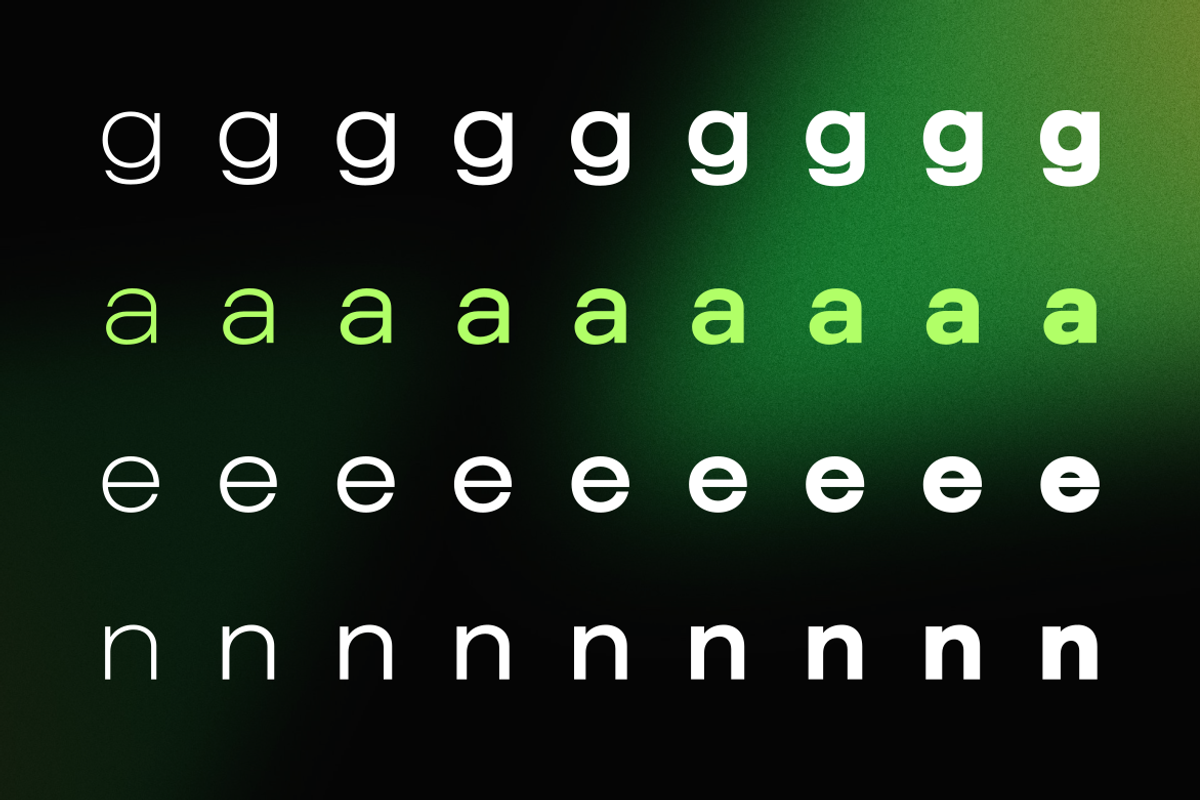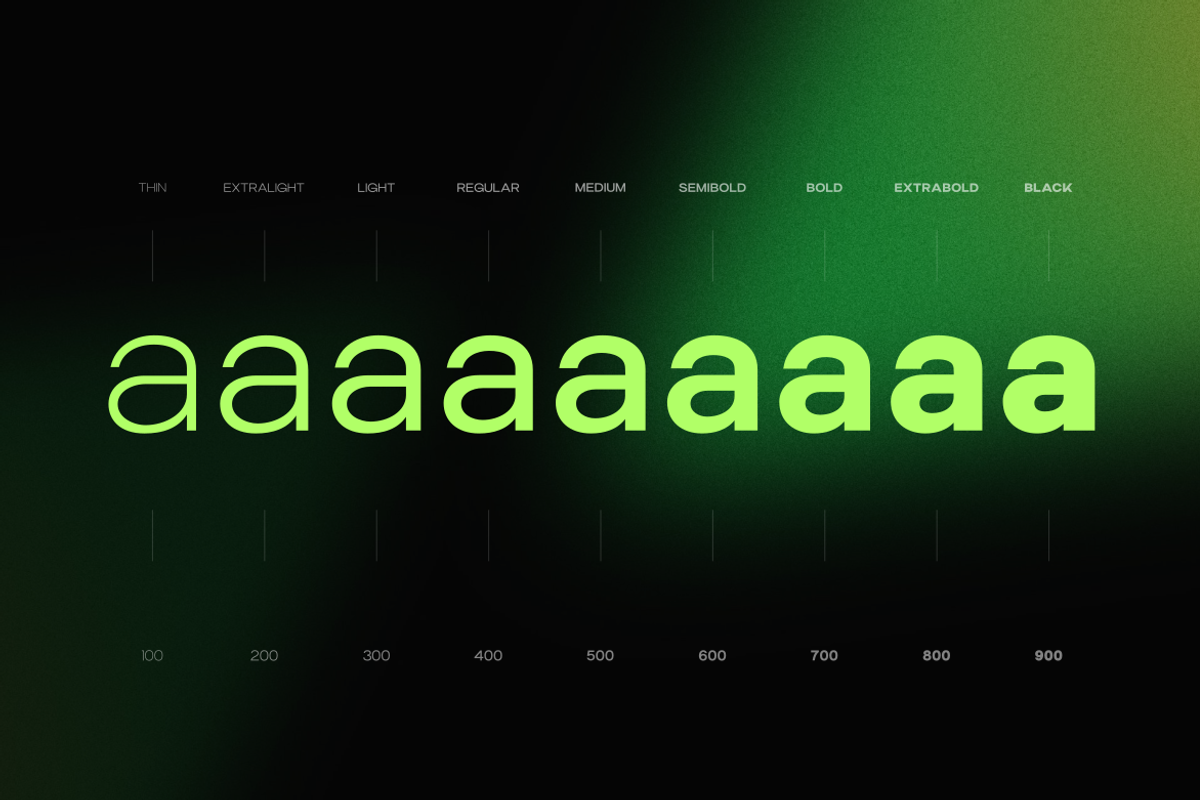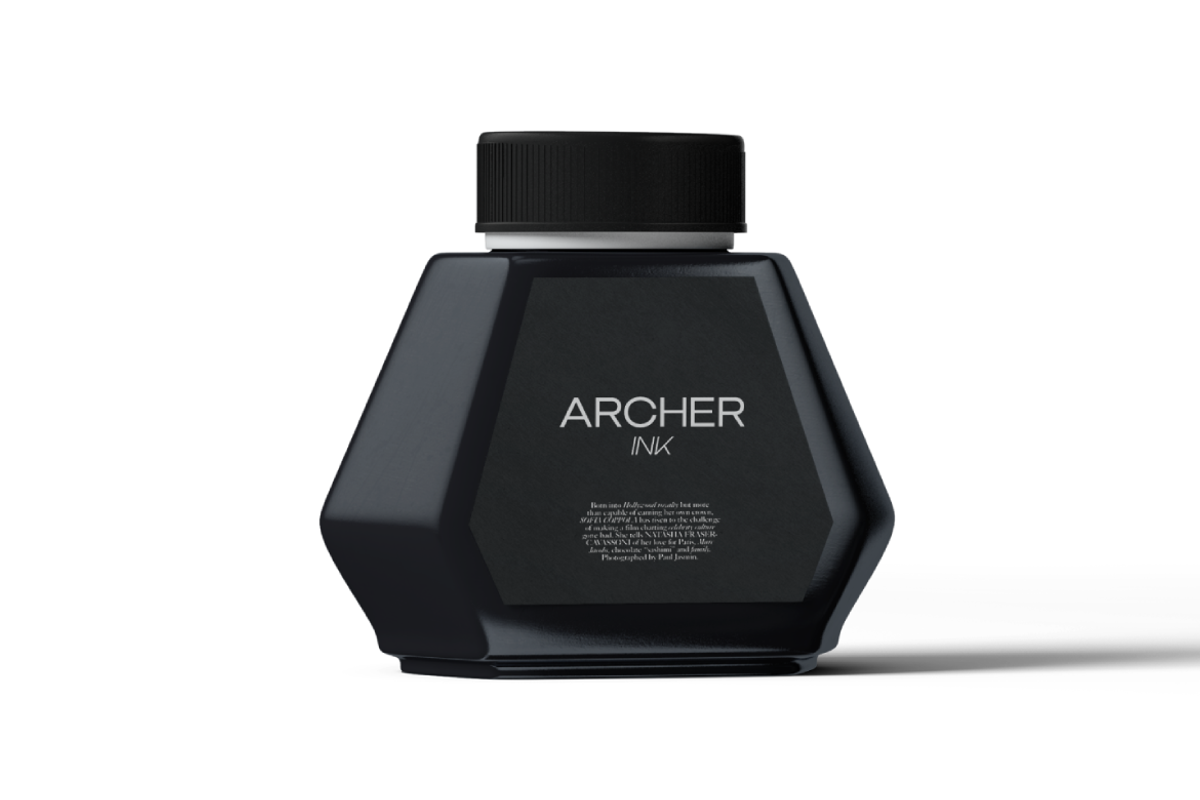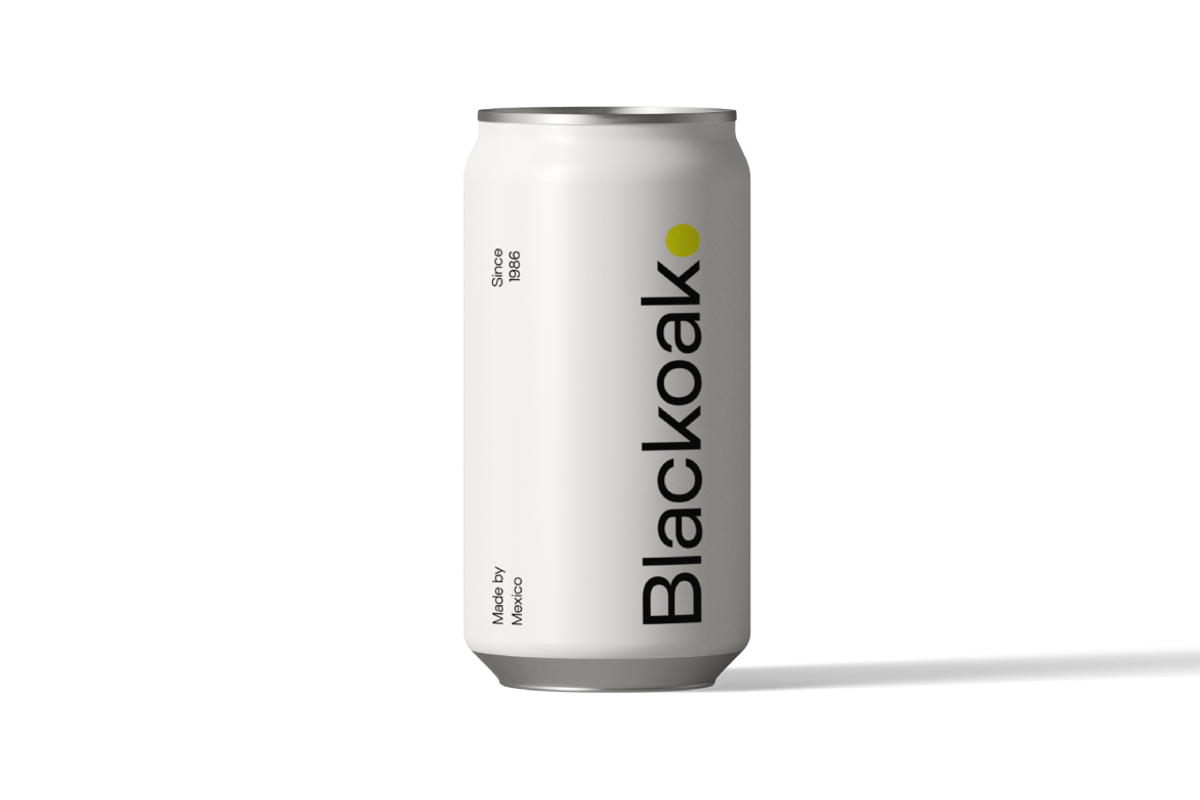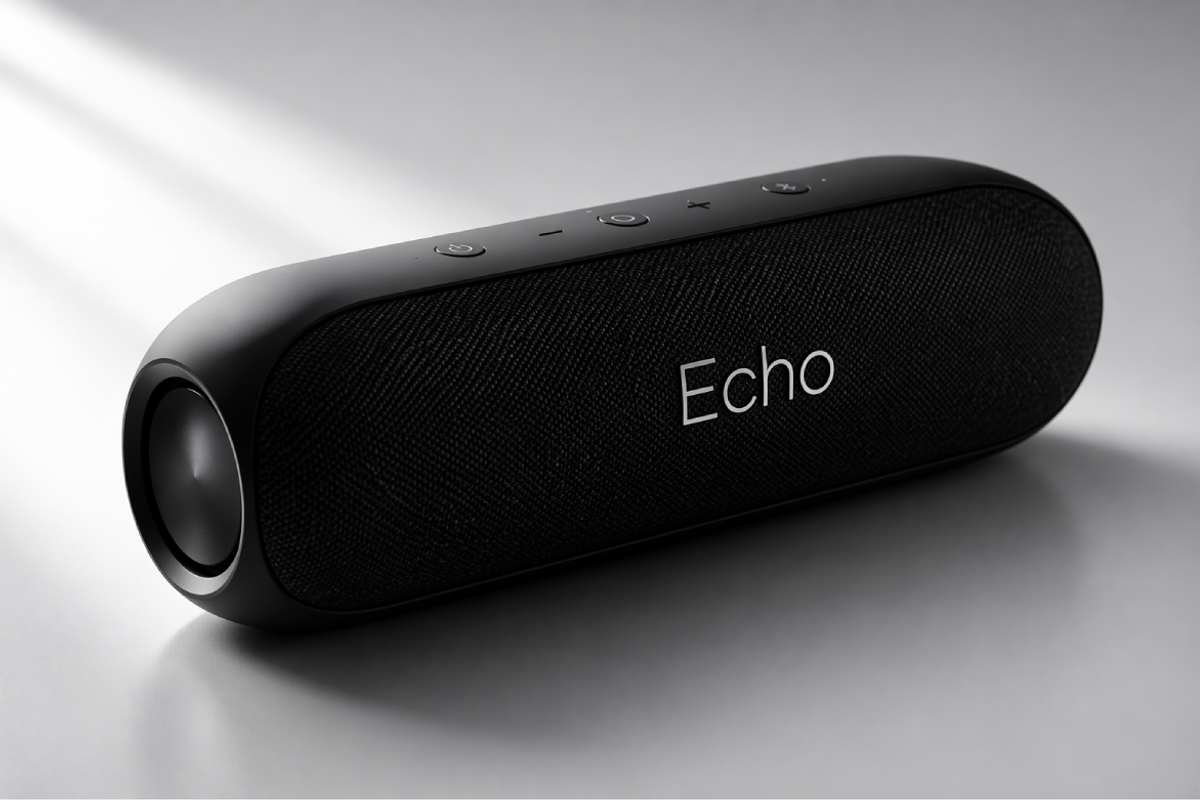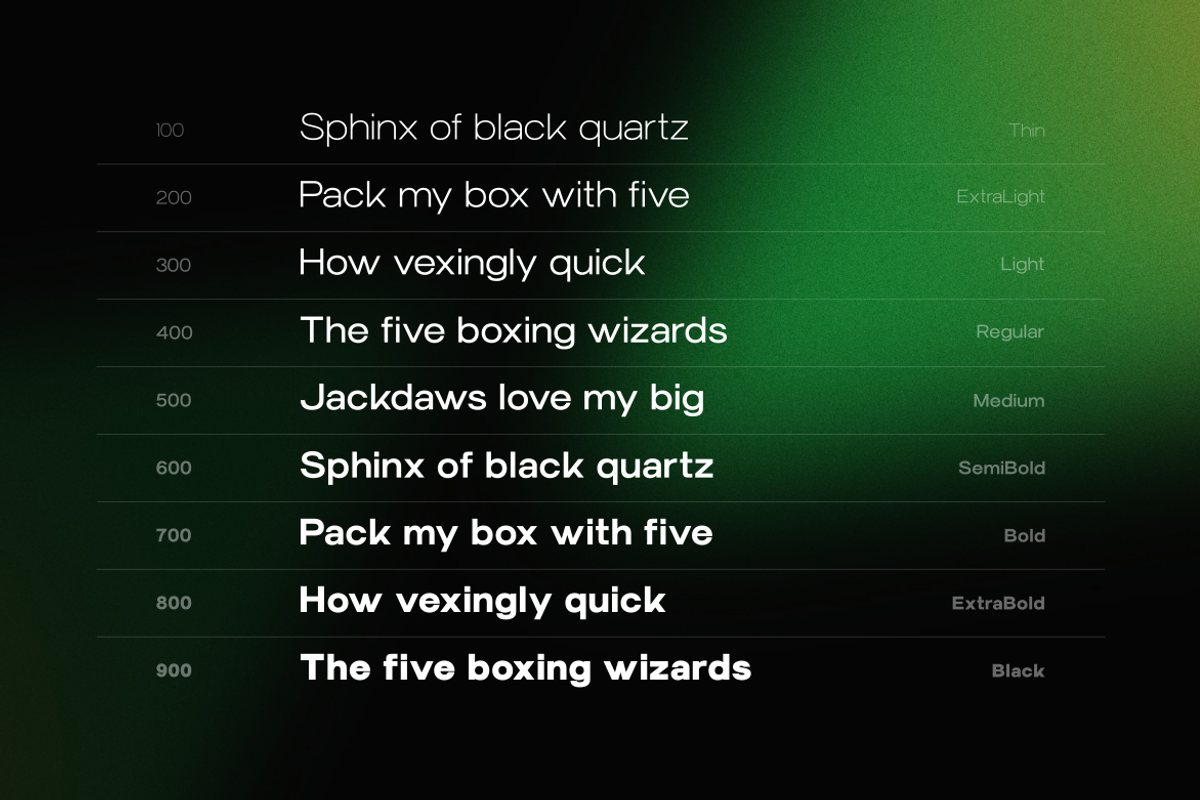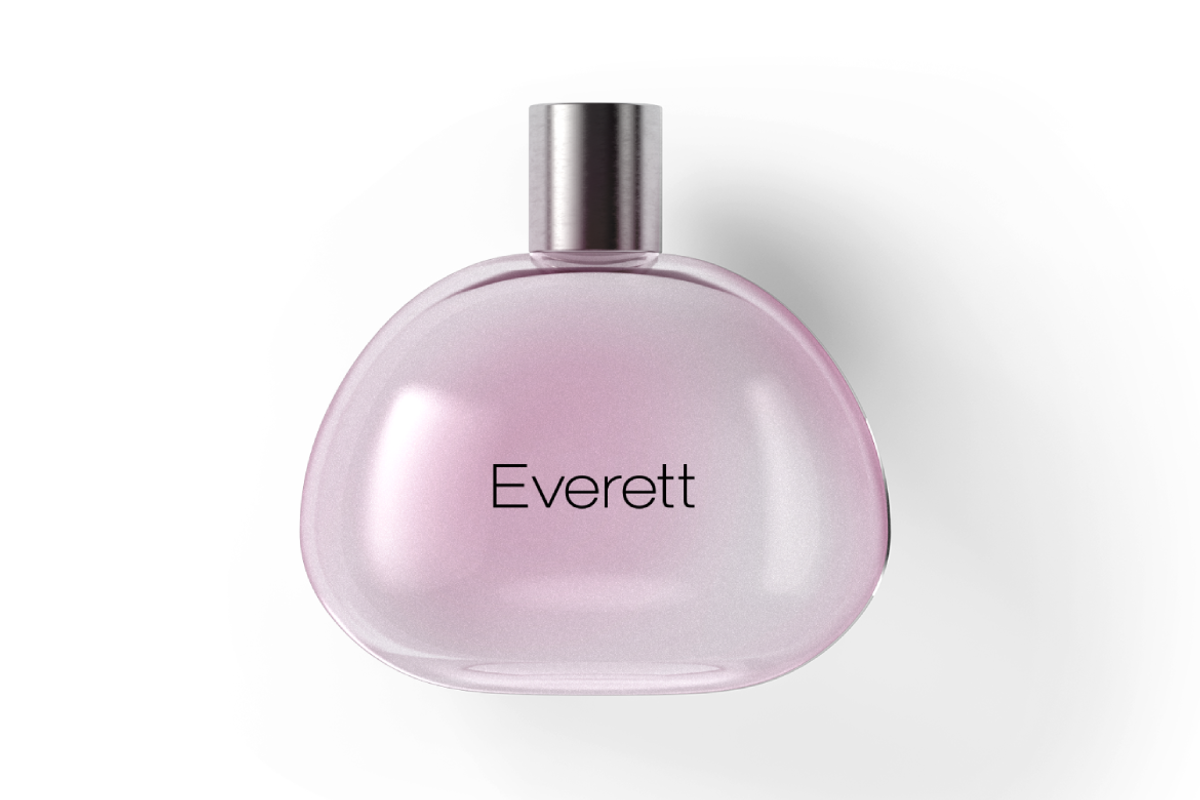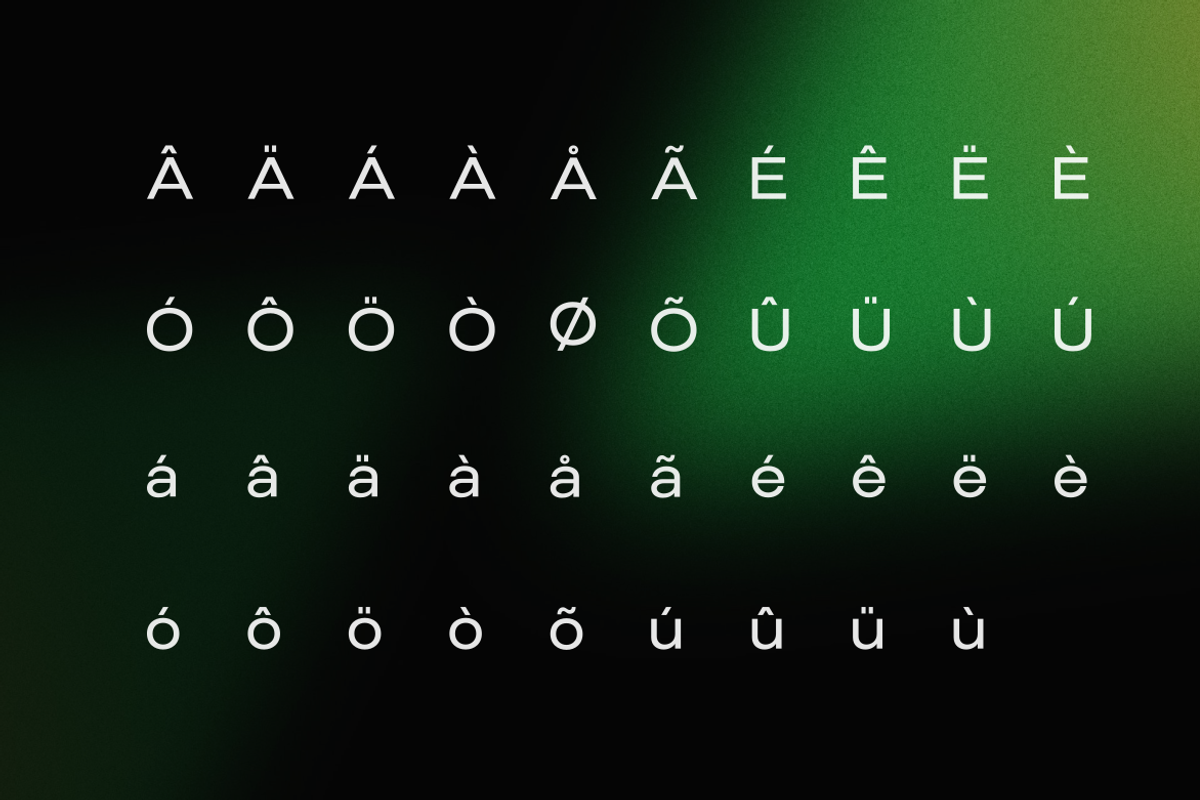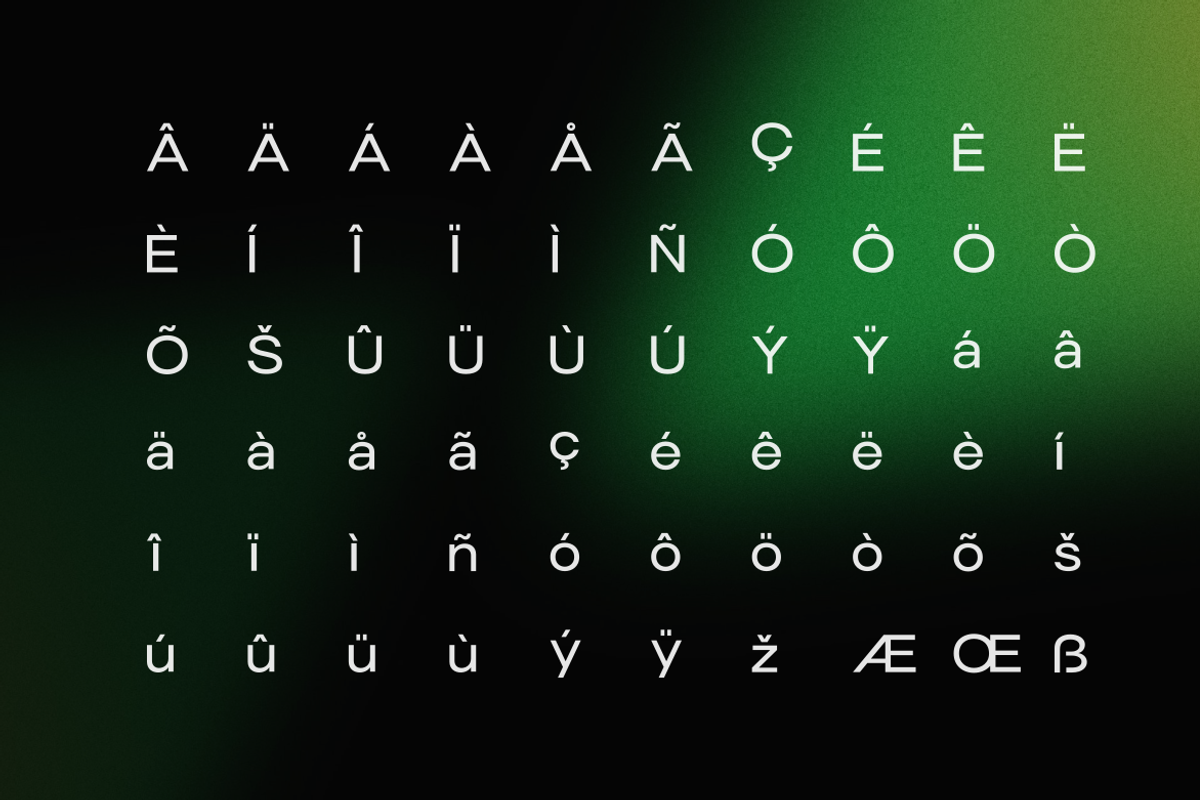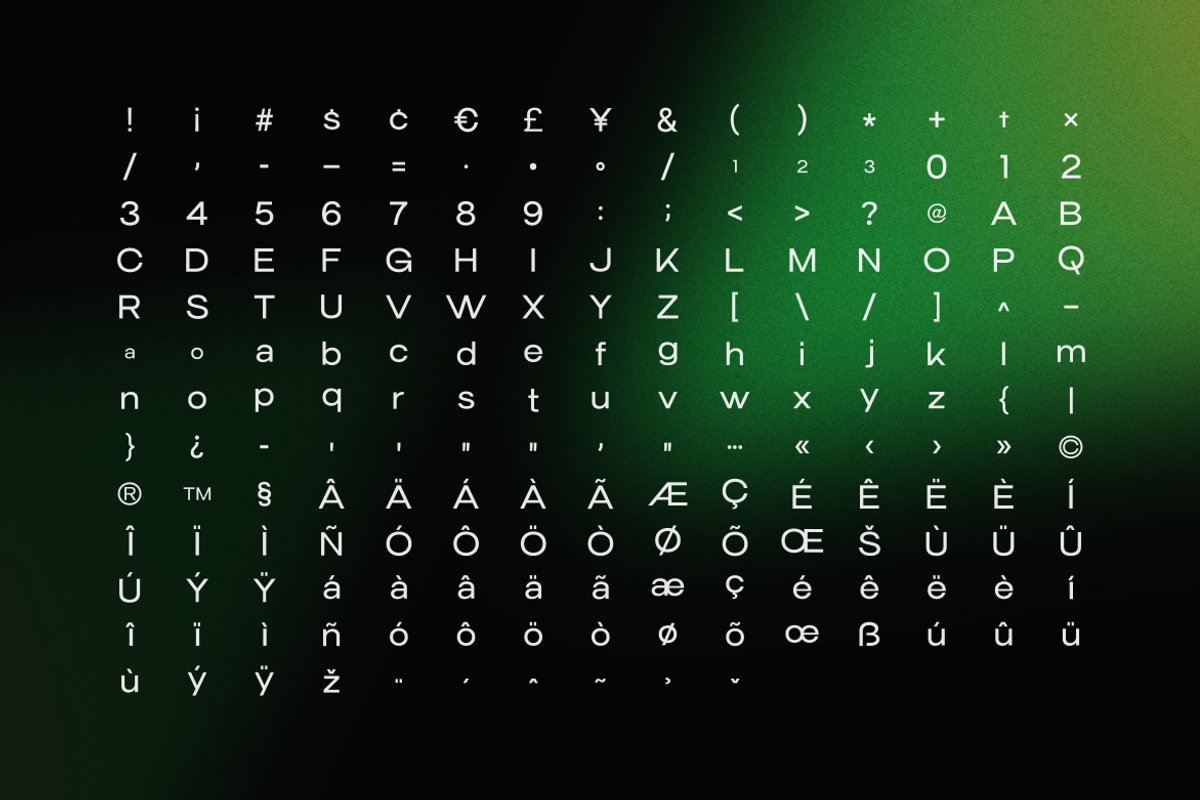
Trevia Groteska – Modern Grotesk
Trevia Groteska is a modern grotesk sans-serif typeface designed for clarity, balance, and everyday usability. With its clean letterforms, controlled spacing, and neutral tone, it works well across interfaces, branding, and editorial design.
Built with a focus on readability, Trevia Groteska performs consistently across different sizes and contexts. It is well suited for UI design, dashboards, websites, and modern brand systems where clarity and structure matter.
Trevia Groteska includes extended Latin support and a full set of accented characters, making it suitable for multilingual use across a wide range of languages.
The family includes 9 weights, from Hairline to Black, each paired with matching italics. Whether you are designing interfaces, brand identities, layouts, or digital products, Trevia Groteska offers a balanced and reliable typographic system.